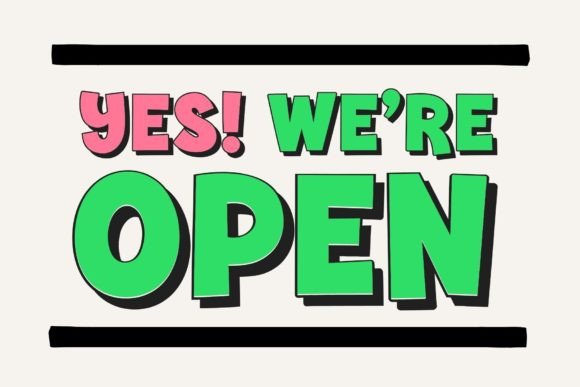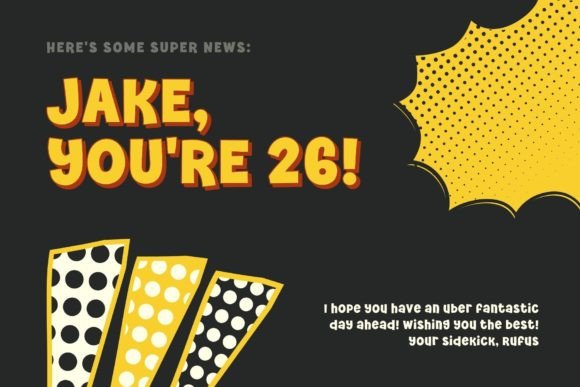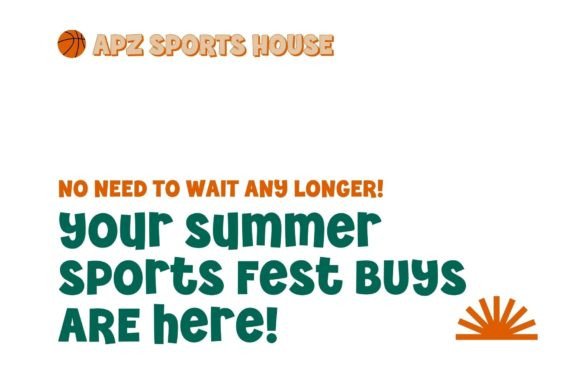
Introduction to Fox Jumps Font
Have you ever stared at a blank page, searching for the perfect font to bring your creative project to life? The struggle is real, but fear not, designers! Today, we’re excited to introduce you to the vibrant and energetic Fox Jumps Font, a free download that’s sure to add a playful touch to your designs.
As a design resource, Fox Jumps Font stands out from the crowd with its unique and high-quality style. With three distinct variations to choose from, you can create a captivating visual identity for your brand, whether it’s a logo, business card, or menu. Plus, its transparent background makes it easy to layer and customize to your heart’s content.
Whether you’re working on a creative project or simply need a fresh design element, Fox Jumps Font is the perfect addition to your toolkit. So, what are you waiting for? Dive in and discover the endless possibilities of this amazing font!
Key Features of Fox Jumps Font
- High-quality font design suitable for creative projects and design resources.
- Features a transparent background, making it ideal for use on any background color or image.
- Comes in a range of sizes, from 12px to 72px, allowing for flexibility in design applications.
- Designed with a high resolution of 300 DPI, ensuring crisp and clear text display.
- Unique characteristics include a playful and whimsical feel, making it perfect for children’s books, cartoons, and other creative projects.
- Supports a wide range of languages, making it a versatile design resource for international projects.
Honest Review: Fox Jumps Font
As a designer, I’ve had the chance to play with a lot of fonts, and I’m excited to share my thoughts on the Fox Jumps Font. I was pleasantly surprised to find it available for free download, which is always a great starting point for any creative project.
One thing that really stands out about this font is its high quality and unique design. The Fox Jumps Font has a quirky, energetic feel that would be perfect for projects that need a bit of personality. I was able to use it for a client’s social media campaign, and it really helped their brand stand out.
Here are some things that work well with the Fox Jumps Font:
- ✨ Unique, quirky feel that adds personality to designs
- ✨ Transparent background, making it easy to use on any background
One thing to be aware of is that the Fox Jumps Font can be a bit over-the-top for some projects. It’s not a font for subtle, minimalist designs – it’s best used when you want to make a statement.
Overall, I’m really impressed with the Fox Jumps Font. It’s a great addition to any designer’s toolkit, and I’d definitely recommend it for creative projects where you need a bit of flair.
For the best results, use the Fox Jumps Font on a transparent background to ensure it stands out. You can also experiment with different font sizes and styles to achieve the desired look.
The Fox Jumps Font is perfect for creative projects that require a fun and playful touch. Use it for social media graphics, blog posts, and more.